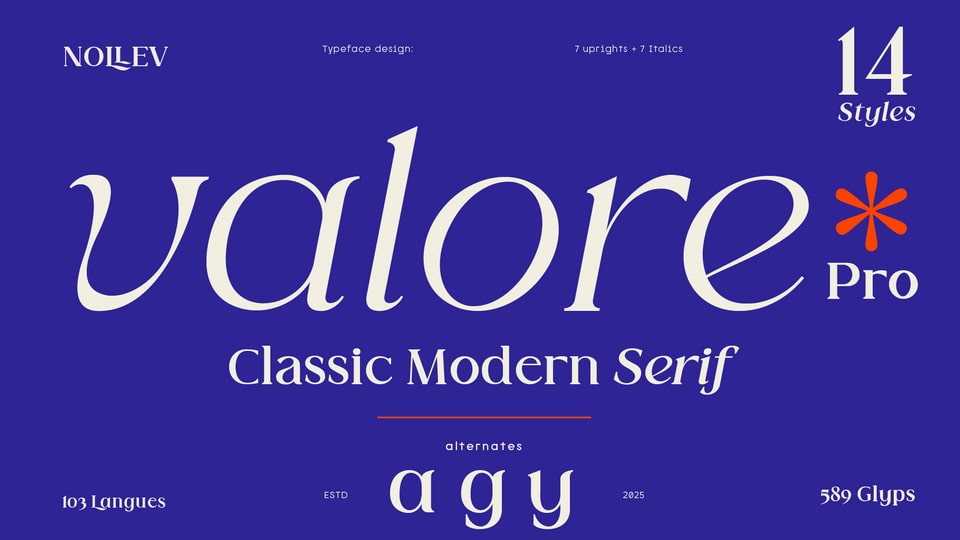
Download Valore Pro font, a classic modern serif designed to bring timeless elegance and modern precision into your projects, with smooth curves, high contrast strokes, and refined italics.
Designer: Akhmad Hidayat